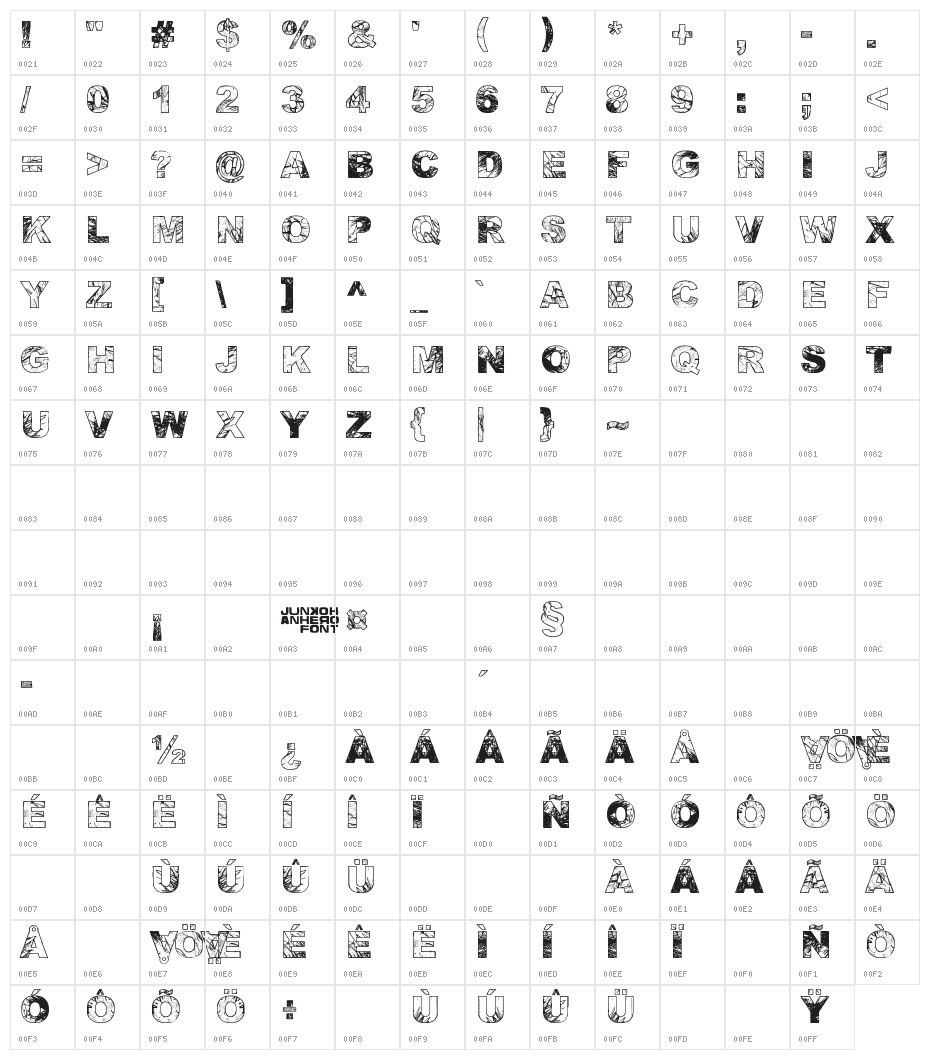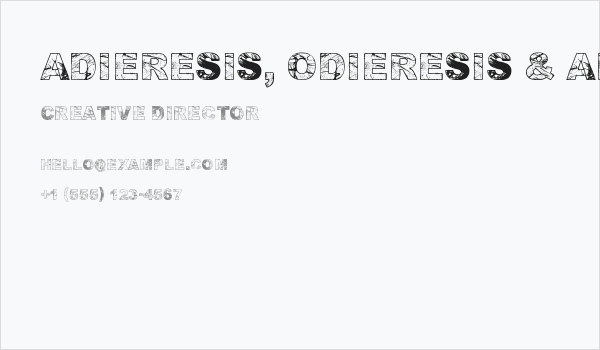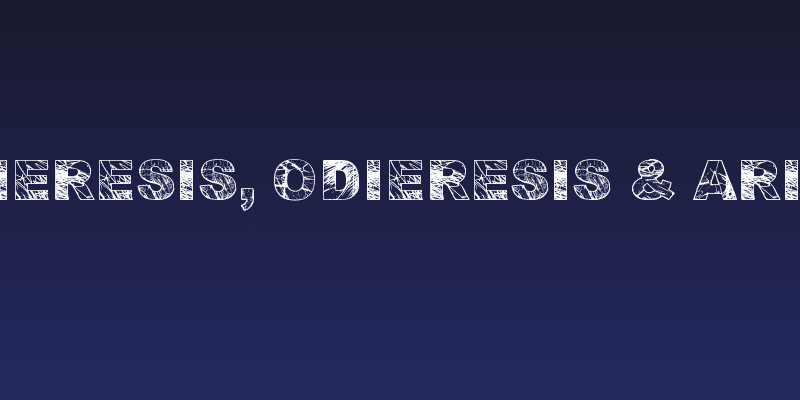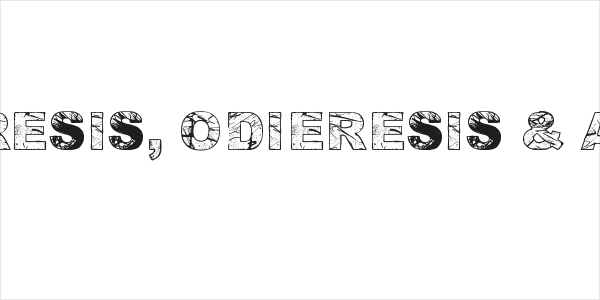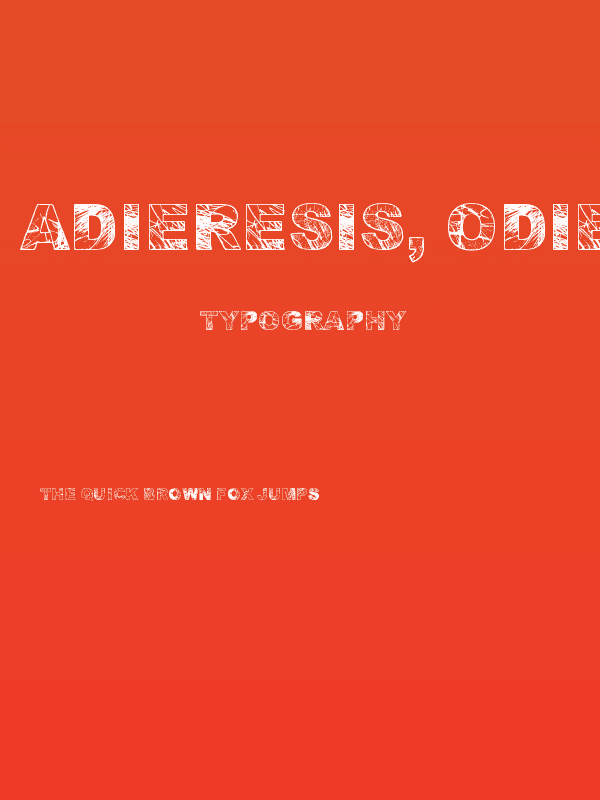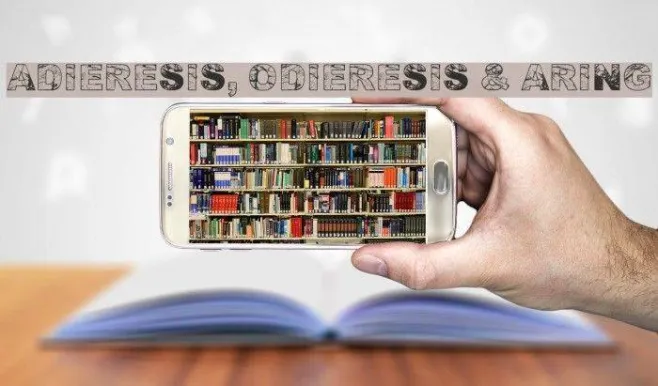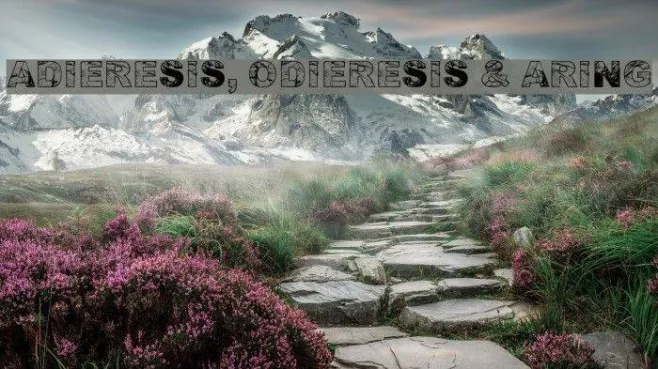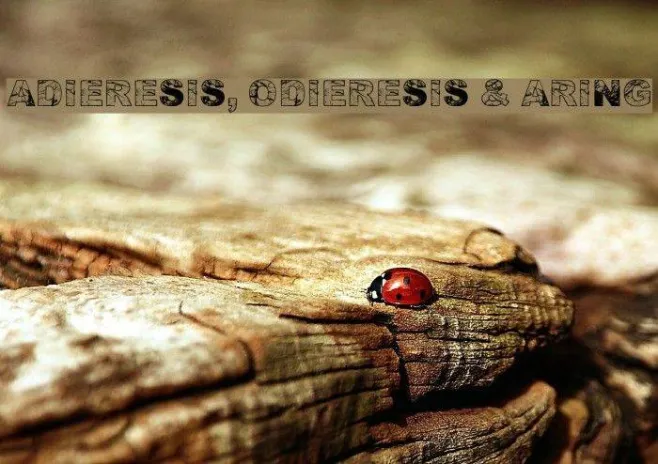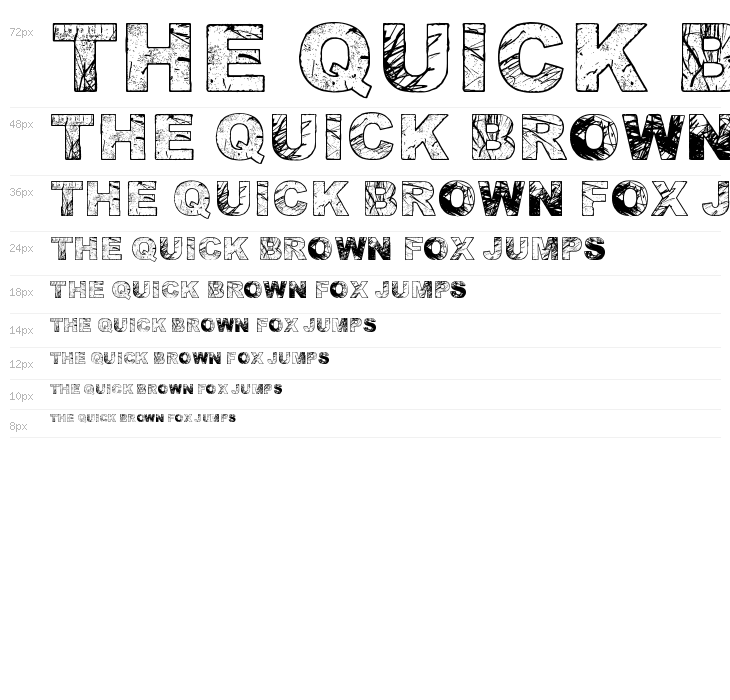
Adieresis, Odieresis & Aring Font
Adieresis, Odieresis & Aring Description
This font features a bold, decorative style with a unique, textured appearance that resembles hand-drawn or sketched lines. Each character is filled with intricate patterns, giving it a dynamic and artistic look. The uppercase letters are prominently displayed, with a consistent width and height, while the numbers and special characters maintain the same artistic flair. The font's playful and creative design makes it stand out, ideal for projects that require a touch of whimsy and individuality.
| Proposed Projects | Ideal for posters, artistic projects, branding, and any design requiring a creative and unique touch. |